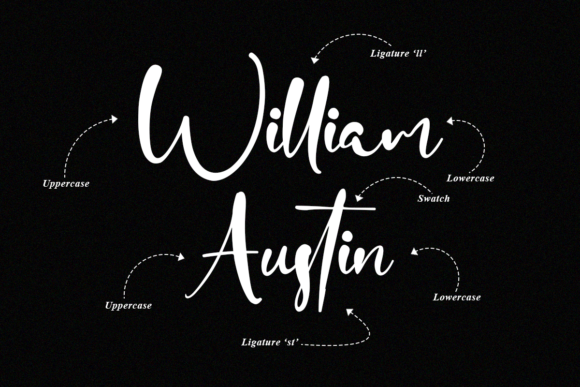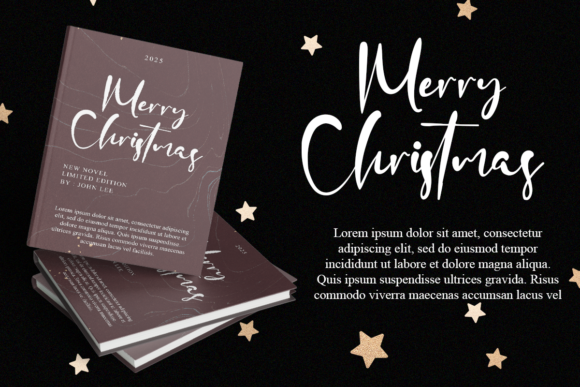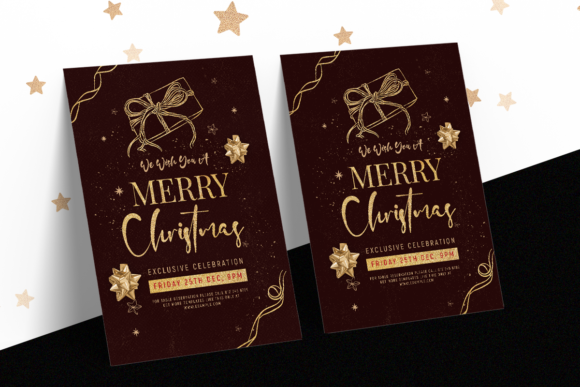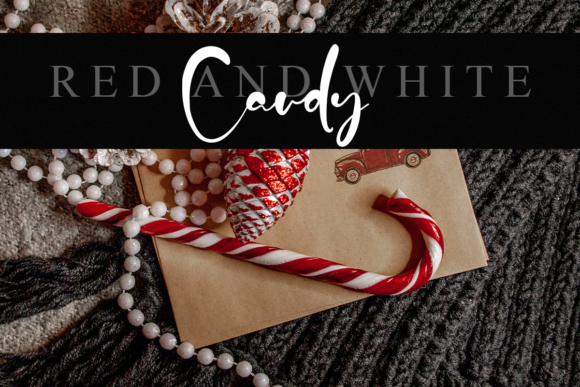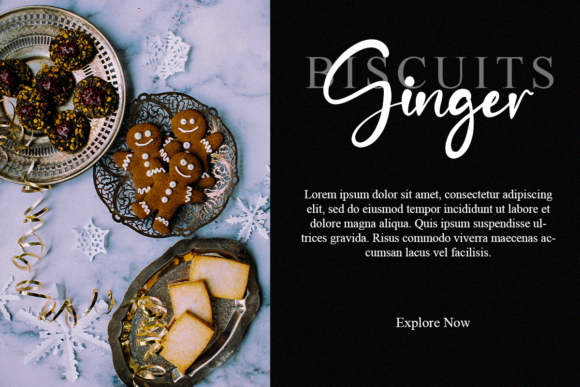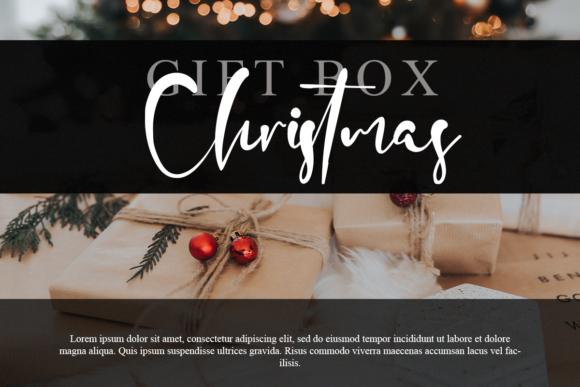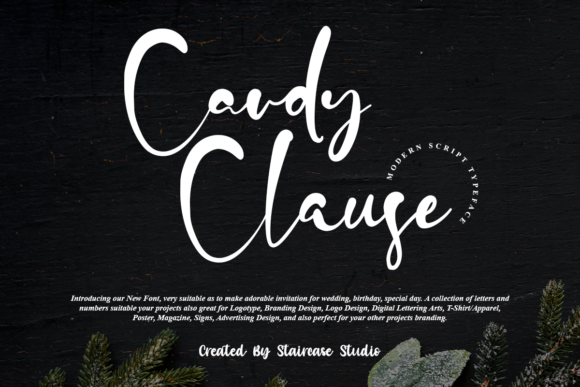
Discover the Sweet Delight of Candy Clause Font
Have you ever stared at a blank canvas, eager to bring your creative vision to life, only to be met with a blank stare from your design tools? That’s exactly what happened to me the last time I was working on a new project. I wanted to add a touch of whimsy and luxury to my design, but nothing seemed to fit the bill. That’s when I stumbled upon the enchanting Candy Clause Font.
This beautiful and light handwritten font is more than just a pretty face; it’s a game-changer for designers looking to add a unique touch to their work. With its stunning impact and luxurious feel, the Candy Clause Font is sure to elevate any design project to new heights.
Whether you’re a seasoned designer or just starting out, the Candy Clause Font is a valuable addition to your toolkit. Its versatility and charm make it the perfect choice for a wide range of design projects, from wedding invitations to advertising campaigns.
Candy Clause Font Key Features
- Font Family: Candy Clause Font is a unique, hand-drawn font designed specifically for festive and holiday-themed applications.
- Character Set: Includes a comprehensive set of characters, including uppercase and lowercase letters, numbers, punctuation, and special symbols.
- Unique Characteristics: Features a whimsical, hand-painted style with intricate details and textures, adding a touch of magic to any design.
Candy Clause Font Review
I recently had the chance to work with the Candy Clause Font, and I must say it’s a sweet addition to any holiday design project ✨. The font is a delightful, cursive script that screams Christmas cheer. It’s perfect for creating invitations, gift tags, and other festive elements.
- Playful and fun, making it ideal for children’s projects or a modern twist on traditional holiday designs ✨
- Works well in digital formats, such as social media graphics and web banners ✨
- Available in a range of sizes, making it versatile for various design applications ✨
However, there are a few limitations to consider ⚠️. The font may not be the best choice for formal or professional projects, as it can come across as too playful or childish. Additionally, the font may not be as readable in smaller sizes or when used for large blocks of text ⚠️.
Overall, I think the Candy Clause Font is a great addition to any designer’s toolkit. While it may have some limitations, it’s perfect for projects that need a touch of whimsy and fun. Just be sure to use it thoughtfully and in context, and you’ll be sure to create some delightful holiday designs.
Tips: Use Candy Clause Font for festive and playful designs, such as Christmas cards, birthday invitations, or kids’ party decorations.
Tips: Use Candy Clause Font for creative and whimsical designs, such as illustrations, graphics, or typography-based art.
Tips: Use Candy Clause Font for presentations, reports, or documents that require a fun and playful tone.
The Candy Clause Font is ideal for:
- Christmas and holiday-themed designs.
- Kids’ party invitations and decorations.
- Festive social media posts and graphics.
- Playful typography-based art and illustrations.
Alternative Fonts to Candy Clause Font
Great Vibes is a modern, cursive font ideal for adding a touch of elegance and whimsy to designs. It features flowing lines and a playful feel, making it suitable for titles, headings, and quotes. Great Vibes is a better option than Candy Clause Font for projects that require a more sophisticated and refined aesthetic.
Pacifico is a beautiful, handwritten font that exudes a sense of relaxation and calmness. Its soft, rounded edges and gentle curves make it perfect for creating a soothing atmosphere in designs. While Pacifico shares some similarities with Candy Clause Font in terms of its cursive nature, it has a more subtle and understated look, making it suitable for projects that require a more serene and peaceful vibe.